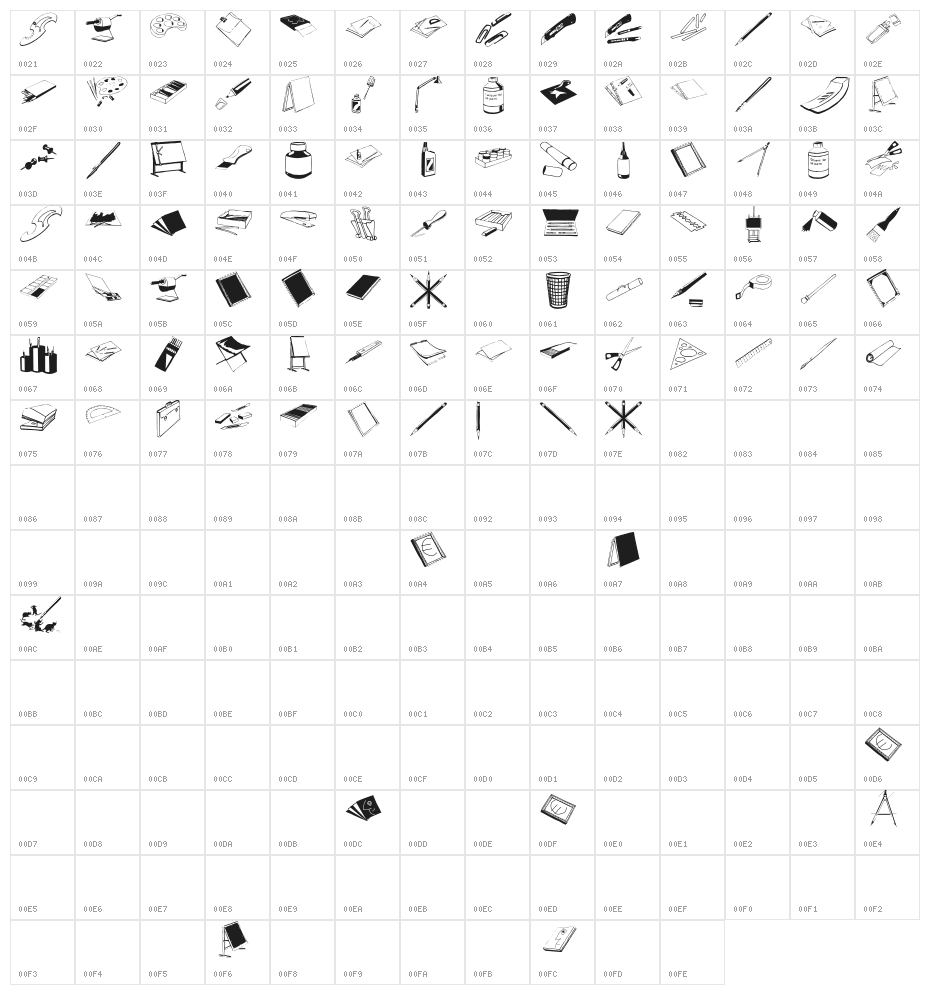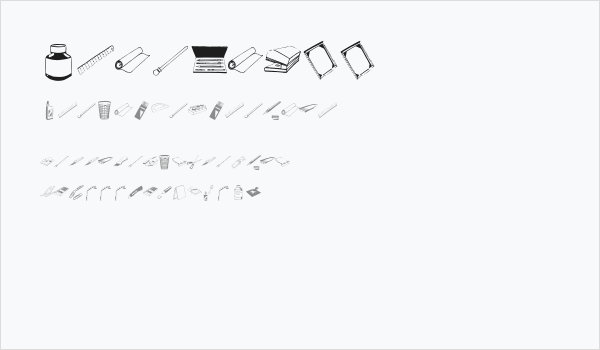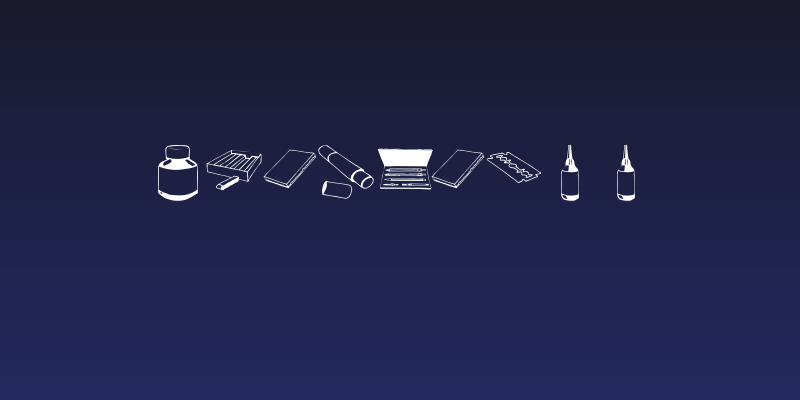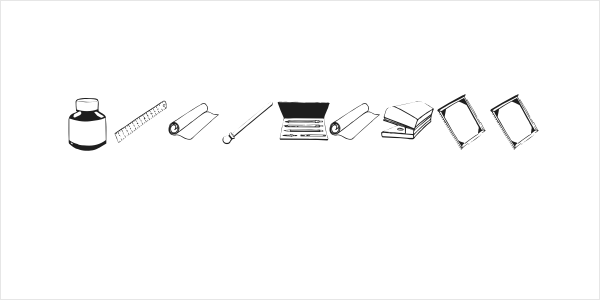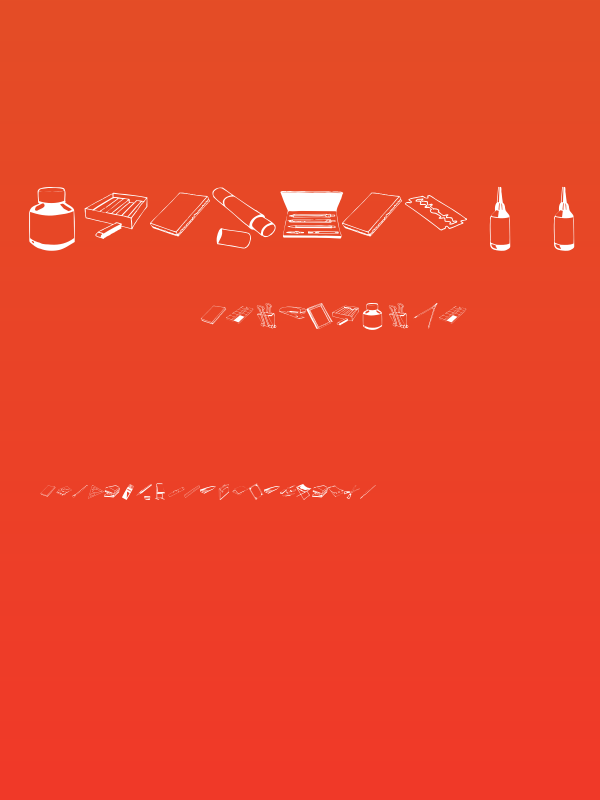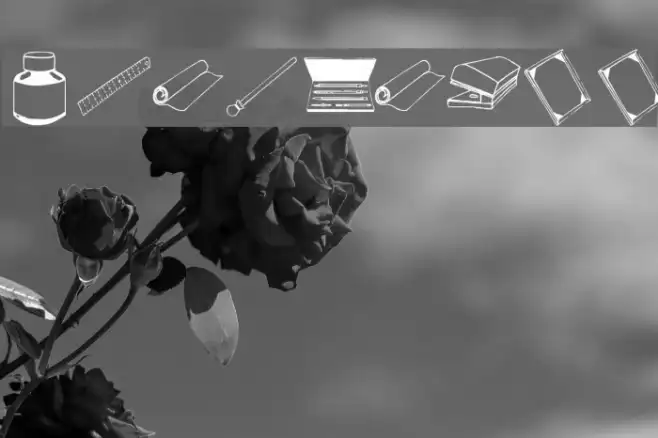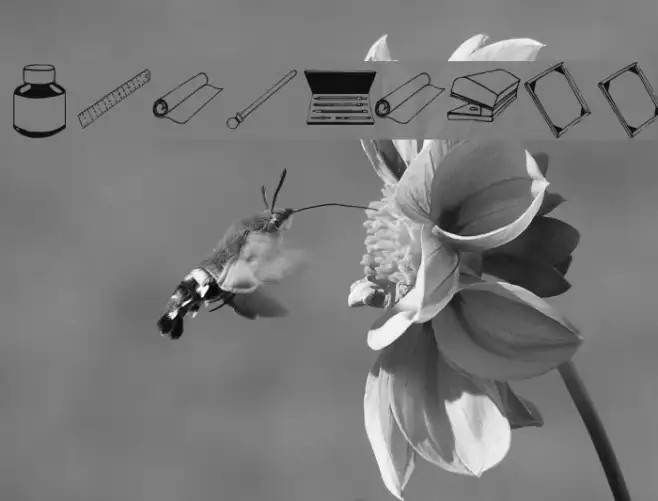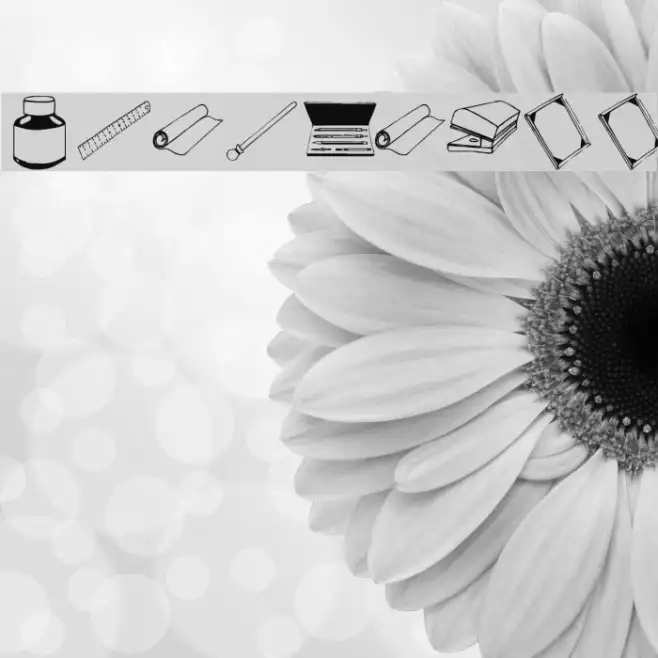
ArteStuff Font
ArteStuff Description
A decorative dingbat font featuring detailed black and white line art illustrations of various art supplies and stationery items, such as paint tubes, brushes, sketchbooks, easels, and drafting tools. Each glyph is a unique icon rather than a standard alphanumeric character.
| Overall Style | Decorative, Illustrative |
| Use Case | Icons, Decorative elements, Themed graphics |
| Proposed Projects | Art supply store branding, educational materials, creative workshop flyers, scrapbooking, and craft-related packaging. |